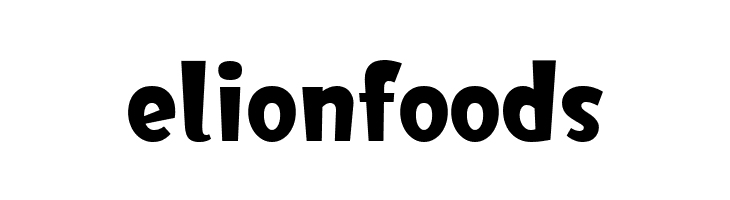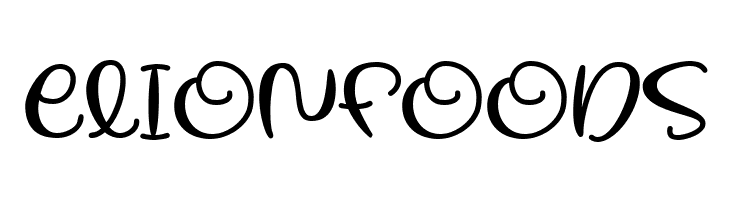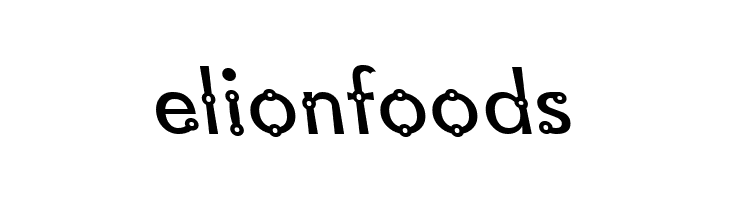
Bloem blaadjes Font
Font by
Fontabenka
A decorative, playful font with geometric and organic elements.
Blacksmith Delight SemiWide Font
Font by Graham Meade - GemFonts
A playful, decorative font with circular embellishments and bold, expanded characters.
CheerScriptROUNDRegular Font
A flowing, cursive script font with elegant, interconnected letters.
CheerScriptEdgeBold Font
A bold, cursive font with a playful and energetic style.
Blacksmith Delight Font
Font by Graham Meade - GemFonts
A playful, modern font with circular connections and consistent stroke widths.
Blacksmith Delight Mirrored Font
Font by Graham Meade - GemFonts
A bold, decorative font with mirrored elements and circular embellishments.
Blacksmith Delight Lefty Font
Font by Graham Meade - GemFonts
A playful, dotted font with a mechanical and whimsical style.
Blacksmith Delight Outlined Font
Font by Graham Meade - GemFonts
An outlined, decorative font with circular embellishments and a mechanical aesthetic.
Cheers Mate Demo Font
Font by epiclinez
A playful, whimsical font with flowing, cursive-like strokes and unique character shapes.
Bon Cheers Font
Font by Kong Font
A graceful, handwritten cursive font suitable for invitations and decorative text.
Acl Font
Font by Alan Cloiseau
A handwritten, tall, narrow font with a casual, playful style.
Carol Cheers Regular Font
Font by Siapgraph
A bold, playful display font with rounded, irregular shapes.